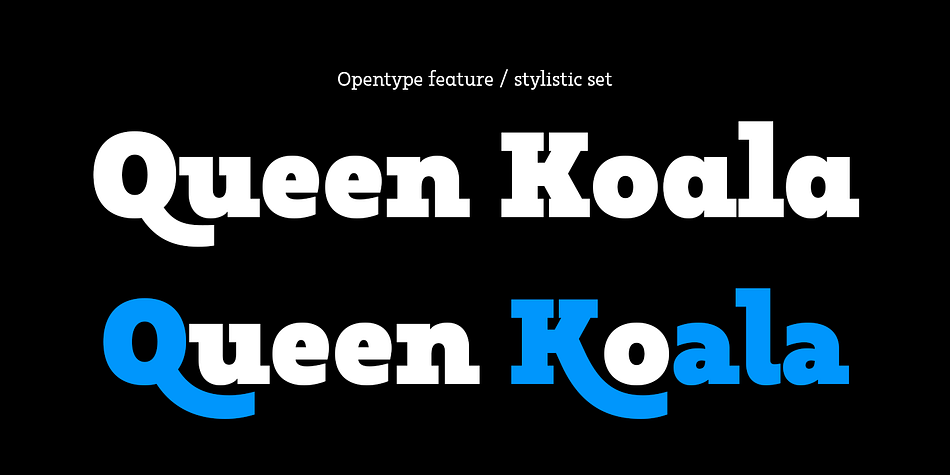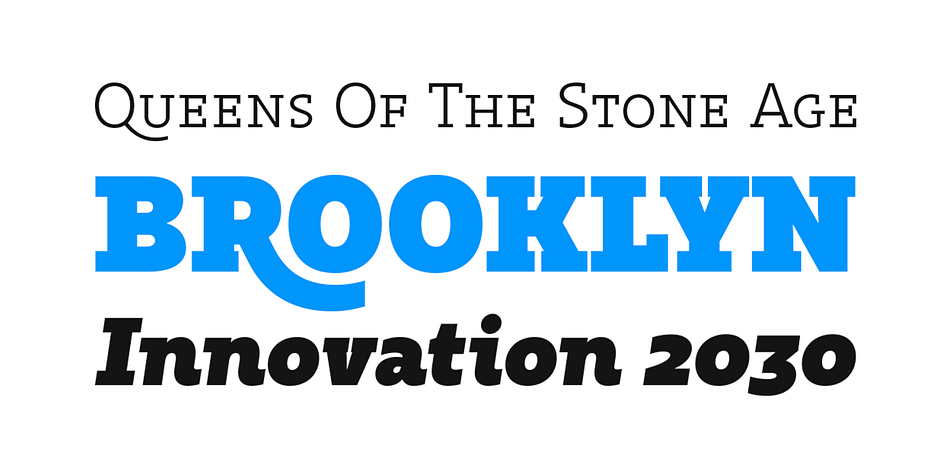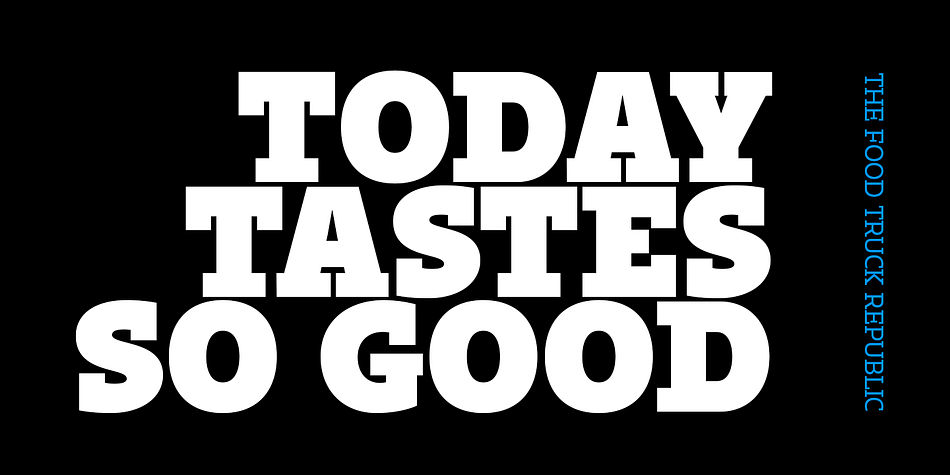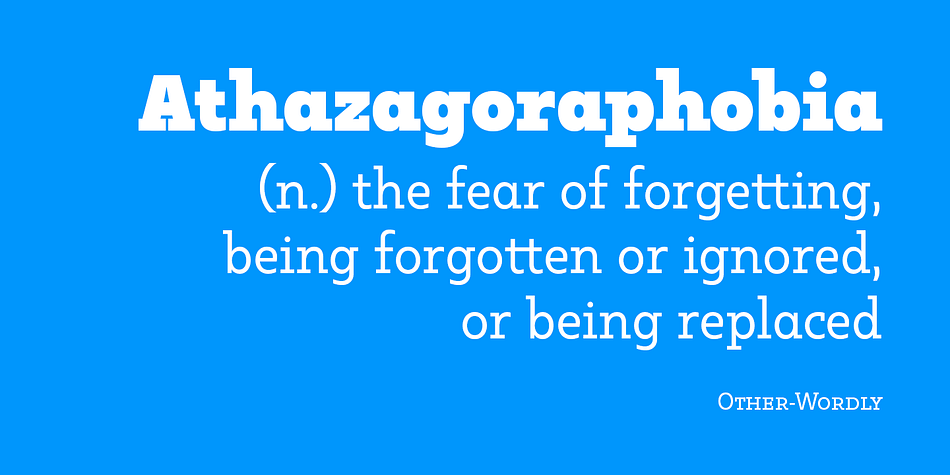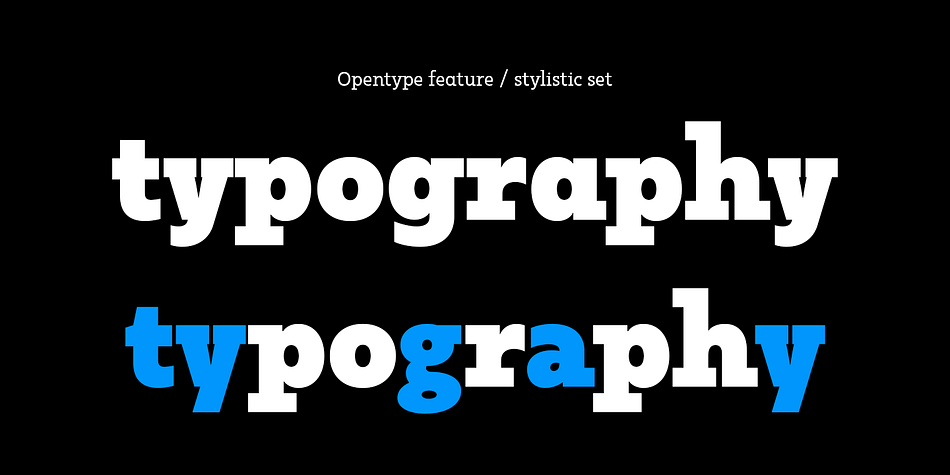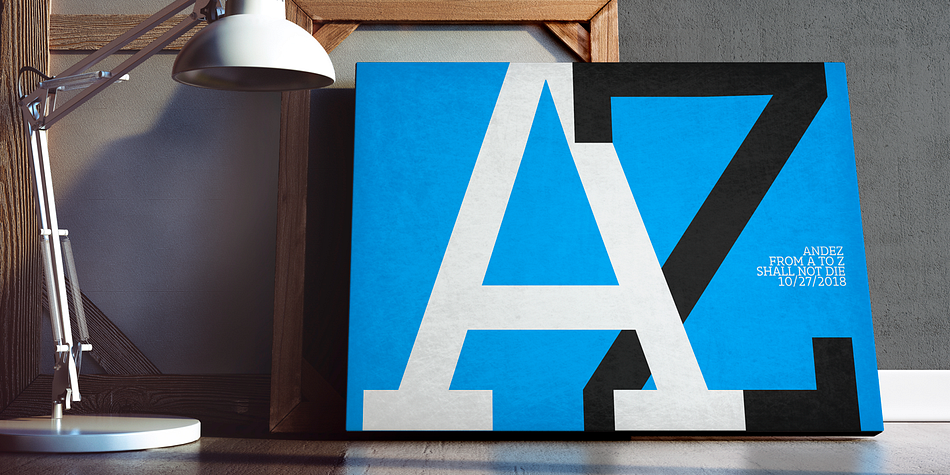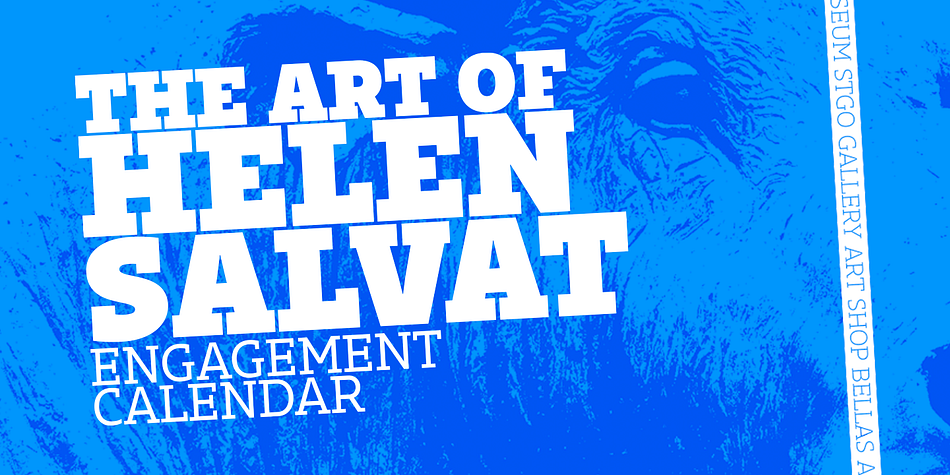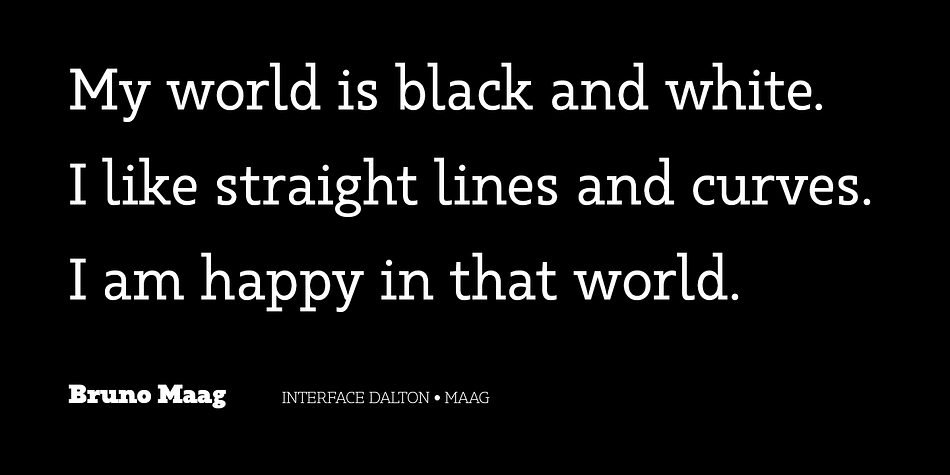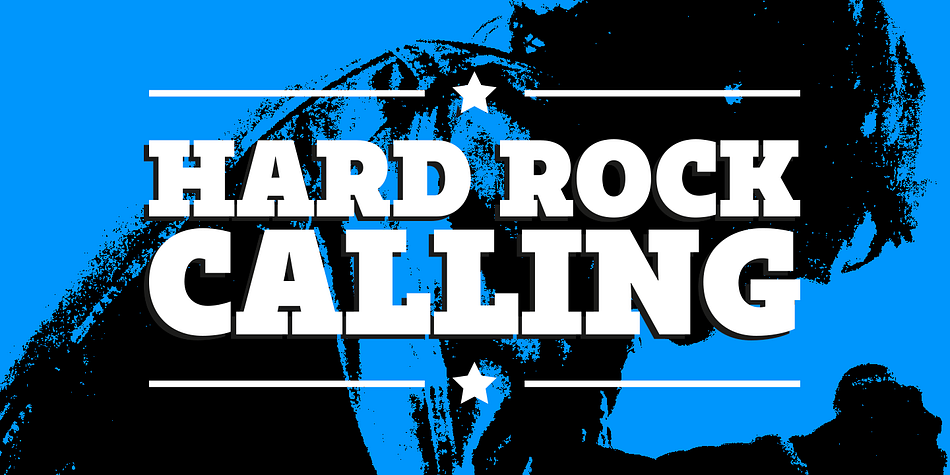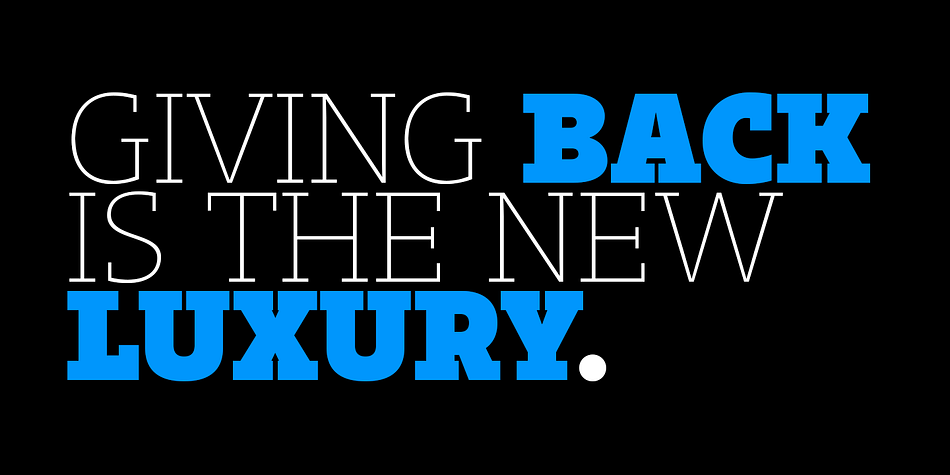
Designed by Salvador Rodríguez, Kappa Vol. 2 is a slab serif font family. This typeface has thirty-six styles and was published by W Type Foundry.
Kappa Vol.2 is the serif version of our popular Kappa . Just as Kappa sans, this font has a slight narrowed structure and a prominent ascender height, therefore this font is suitable for a large range of platforms. Moreover, due to its serif Kappa Vol.2’s level of legibility is more accurate, so when you use it alongside Kappa sans the results will be extremely effective.
Designed with powerful OpenType features in mind. Each weight includes alternate characters, ligatures, fractions, special numbers, arrows, extended language support, small caps and many more… Perfectly suited for graphic design and any display / text use. The 36 fonts are part of the larger Kappa super family.